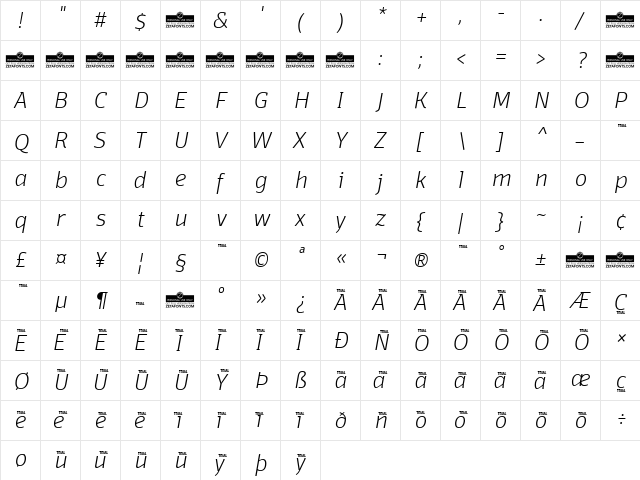
Domotika Trial ExtraLight Italic
| Foundry | Studio Kmzero |
| Designer | Cosimo Lorenzo Pancini |
Design Context for Domotika Trial Typeface
Domotika Trial offers clean, dependable letterforms without strong stylistic allegiance, making it a practical choice for designers who need flexibility. Its italic angle brings a sense of urgency and motion to the letterforms. Its slender proportions lend an understated elegance to any composition.